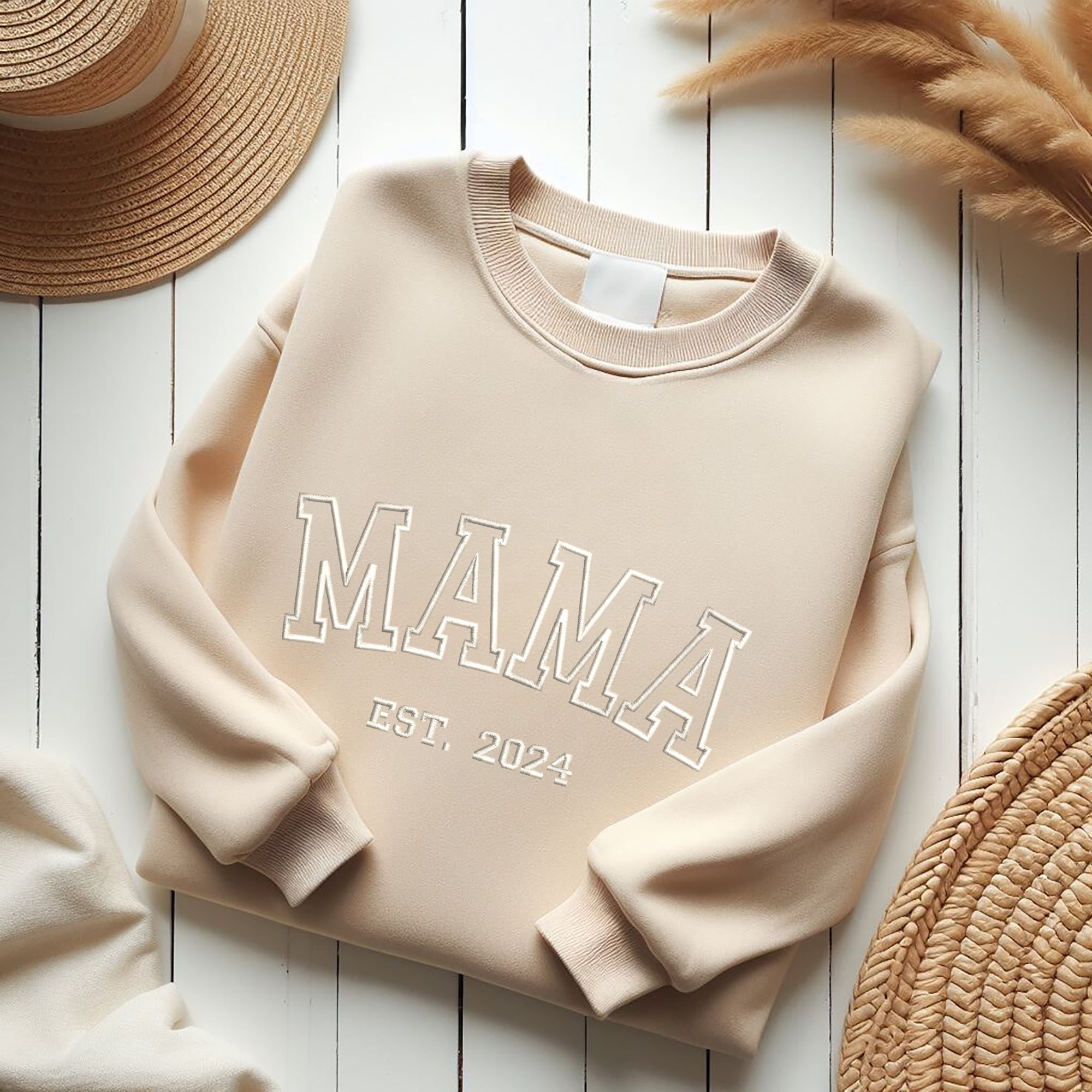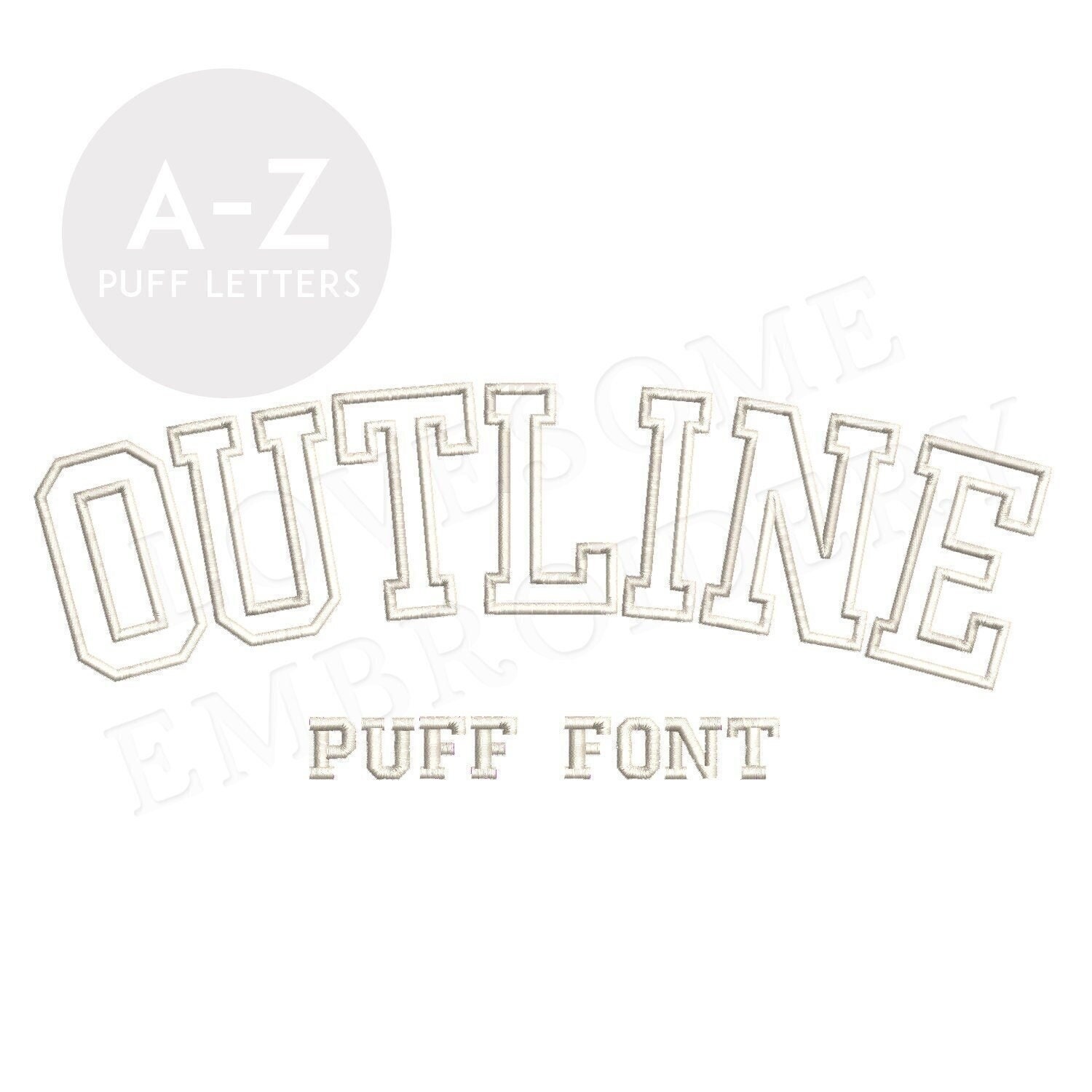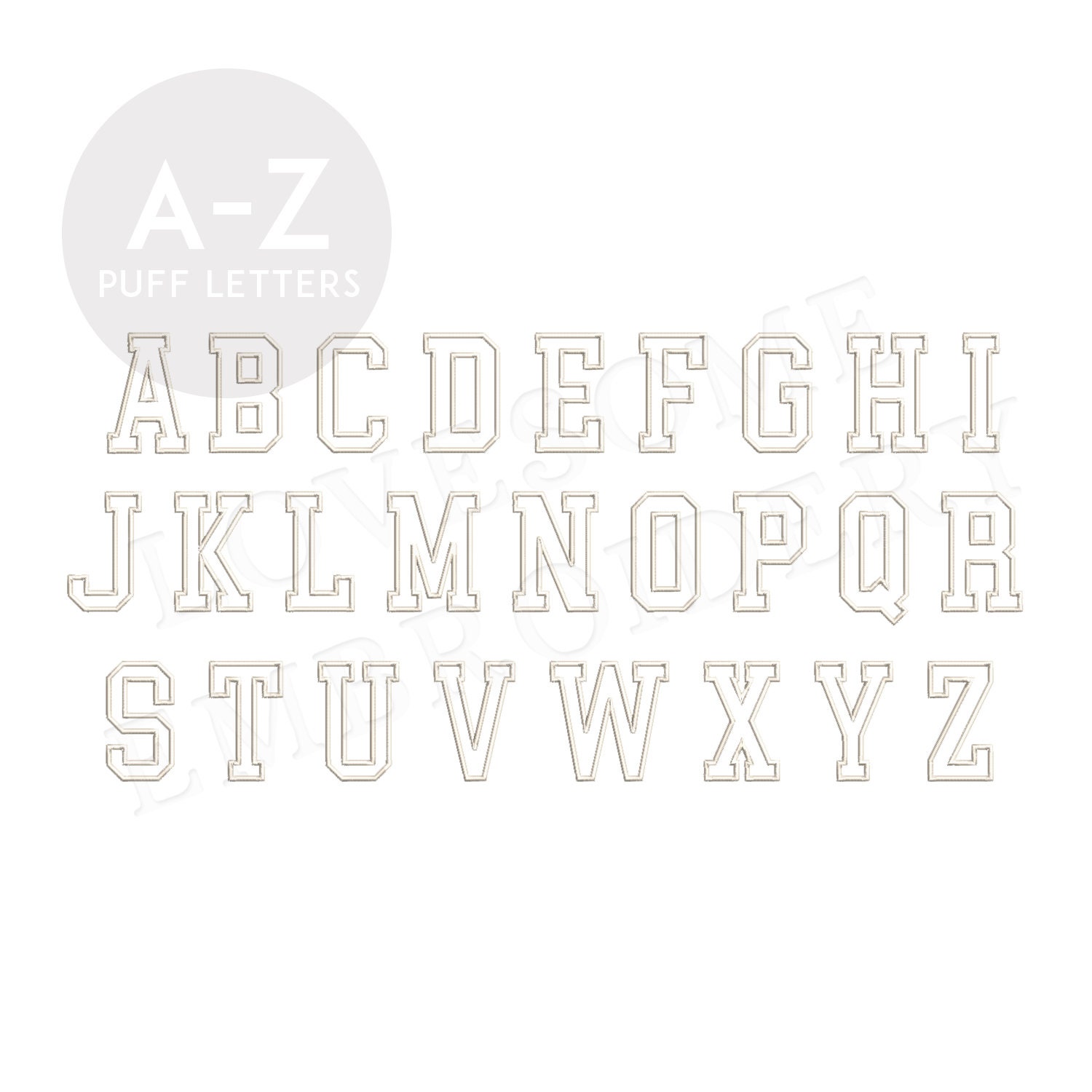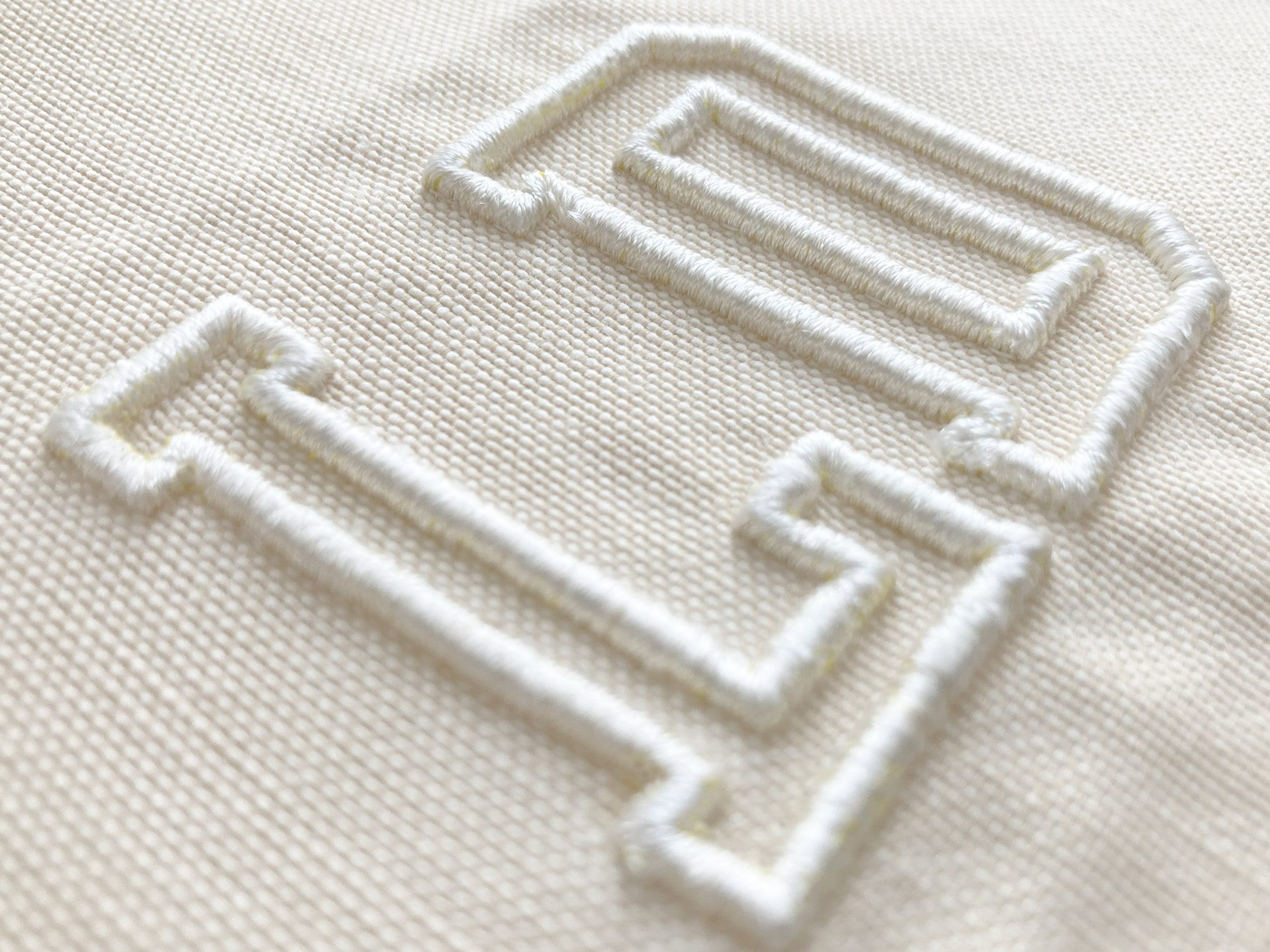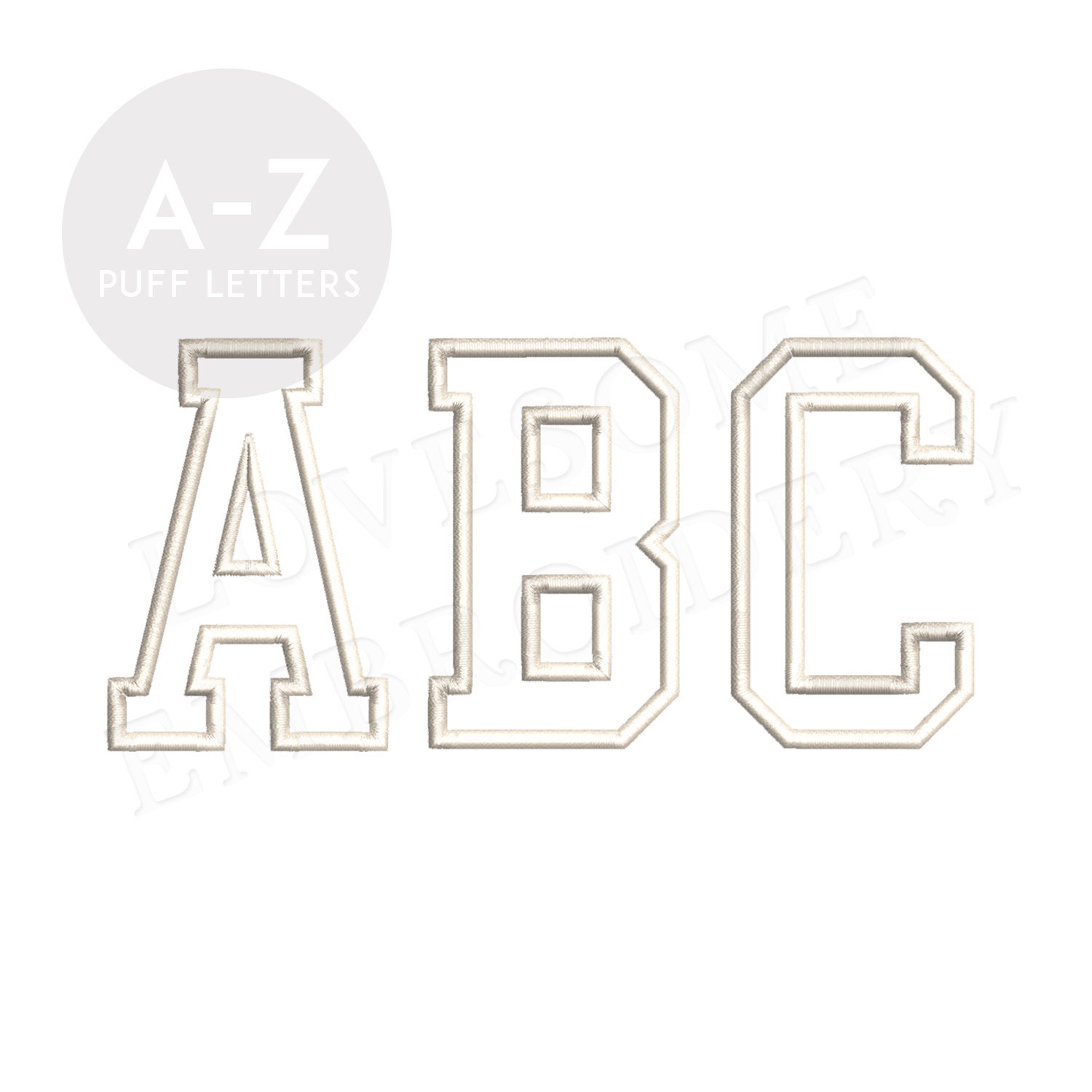
College Outline 2.5inch Puff Font A-Z Machine Embroidery Sports Letters, Puff 3D Foam Embroidery Font Digital Download | Lovesome Design
This listing features a machine embroidery font set for puff stitch embroidery which includes embroidery files of 26 uppercase letters in 2.5inch size. (For the whole set, pls see the listing images.)